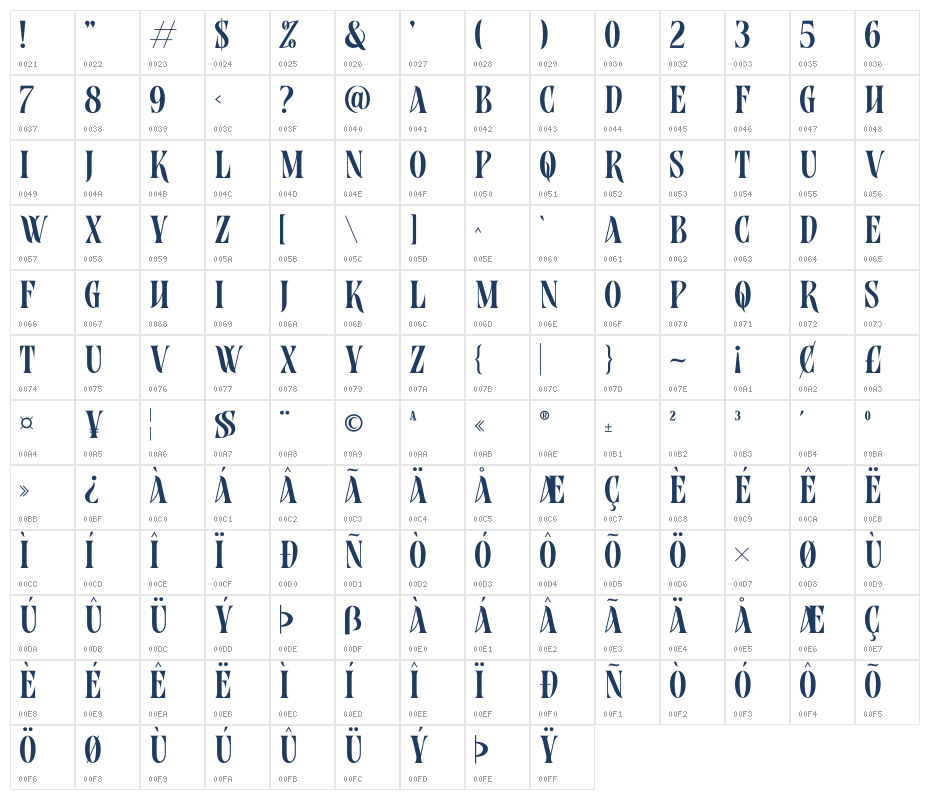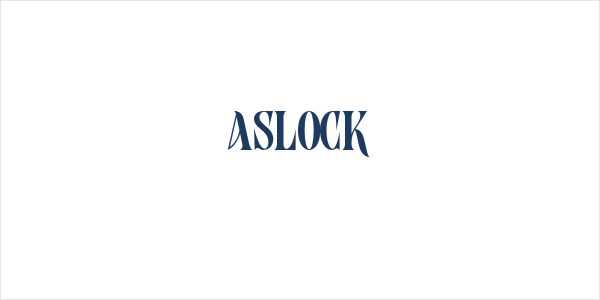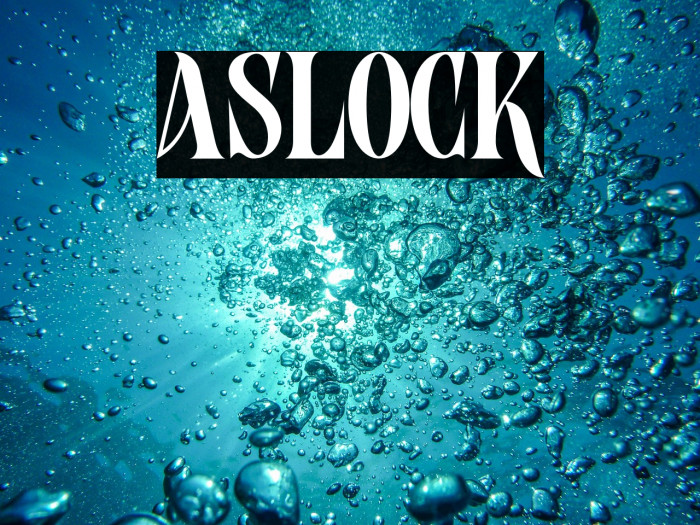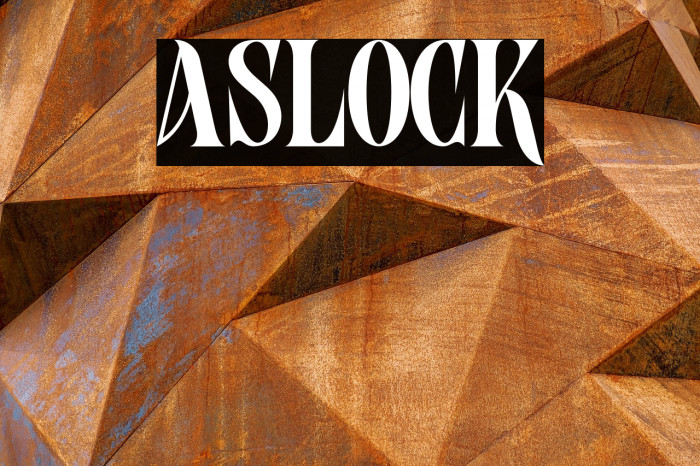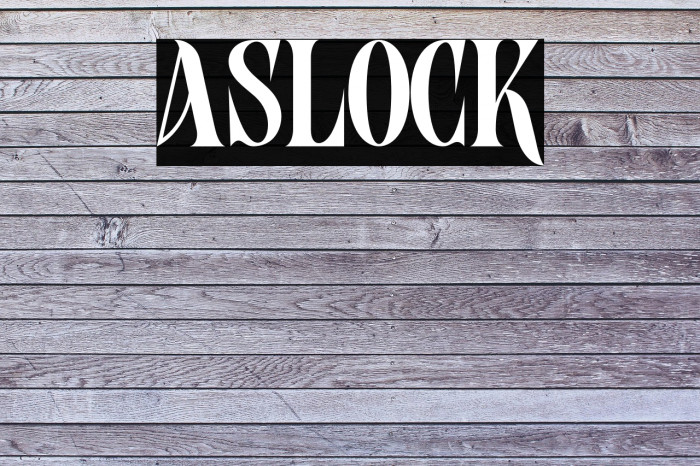
Aslock Font
Aslock Description
A decorative serif font with high contrast, sharp angles, and elegant, stylized letterforms.
Aslock
| Overall Style | Elegant, Vintage, Decorative |